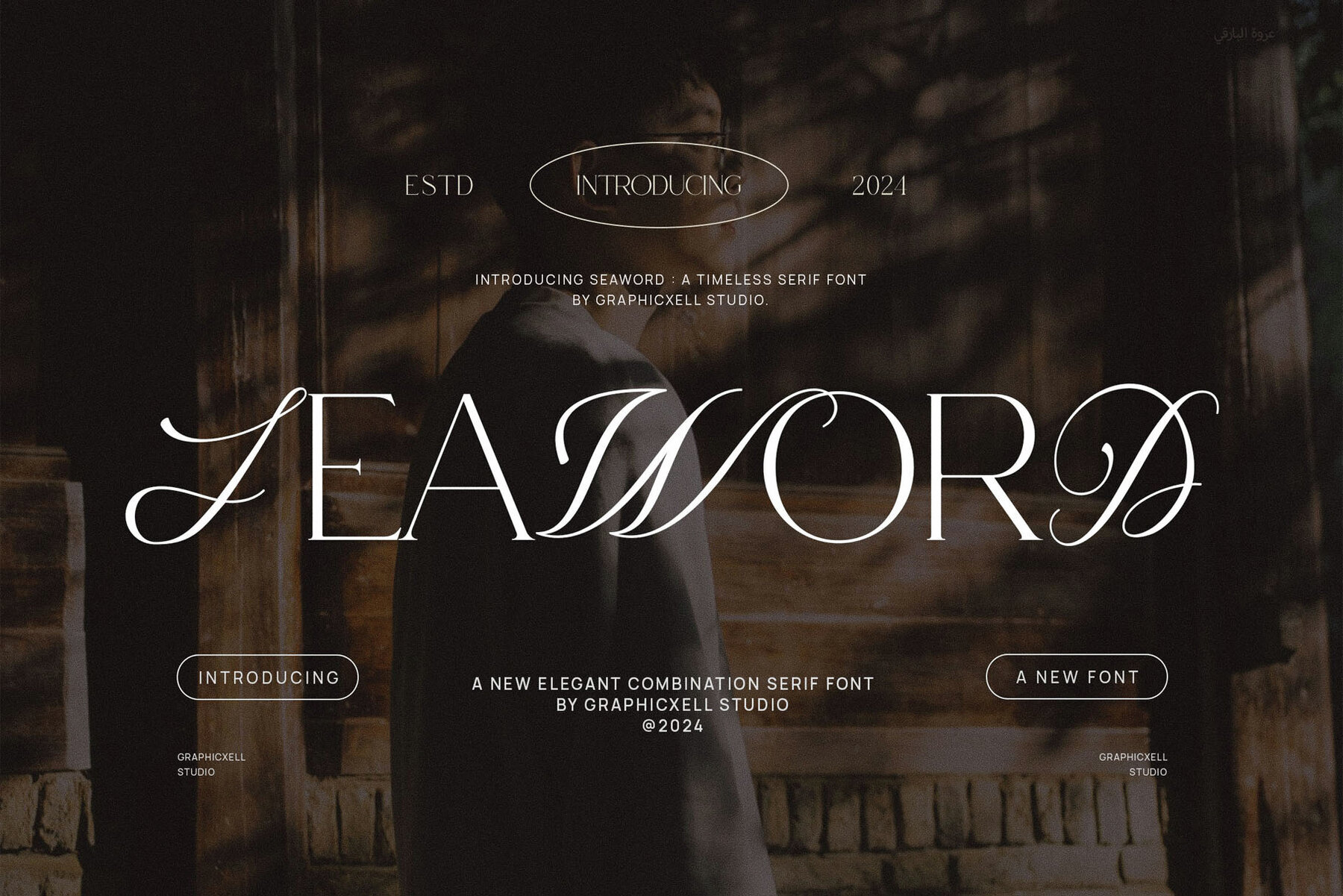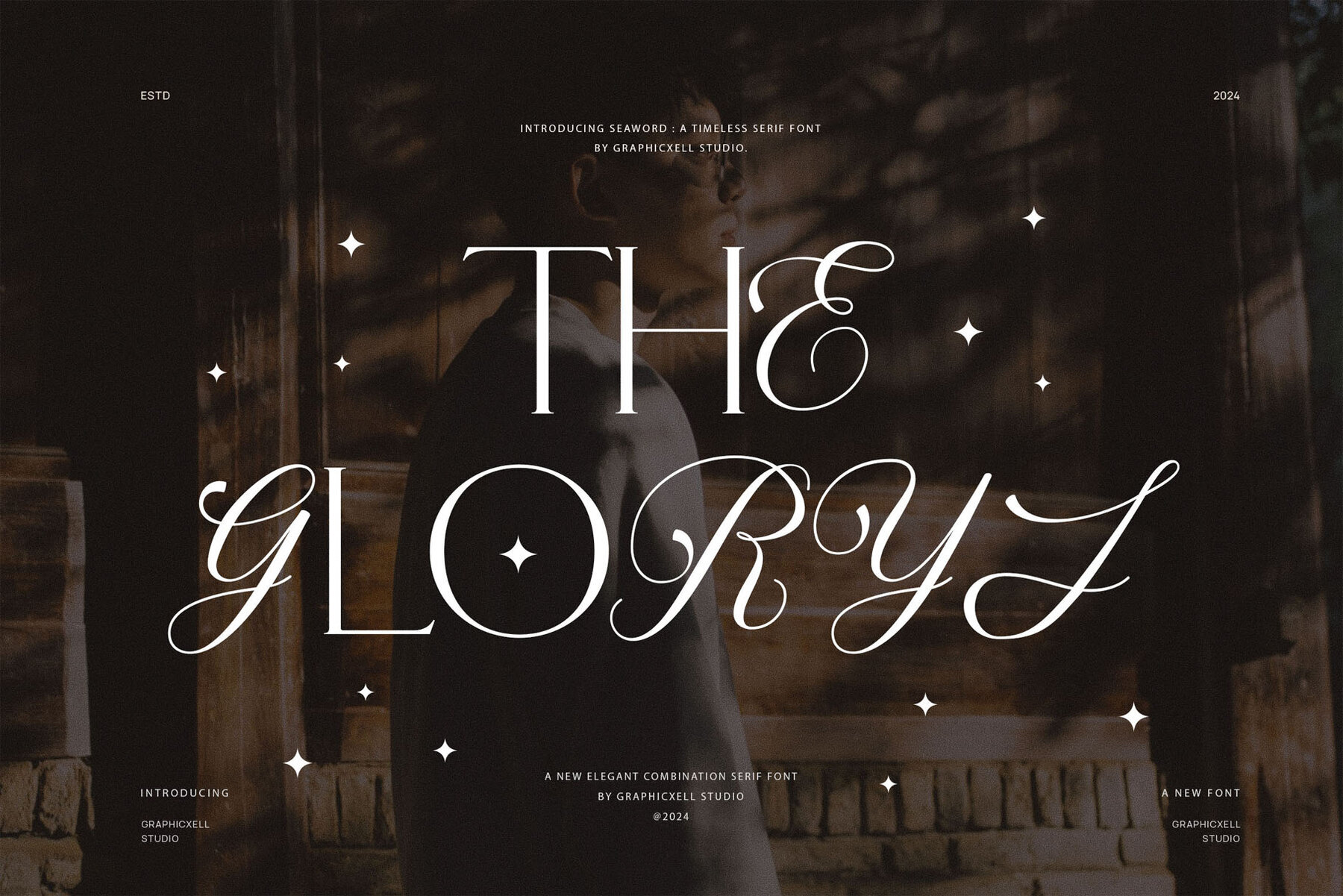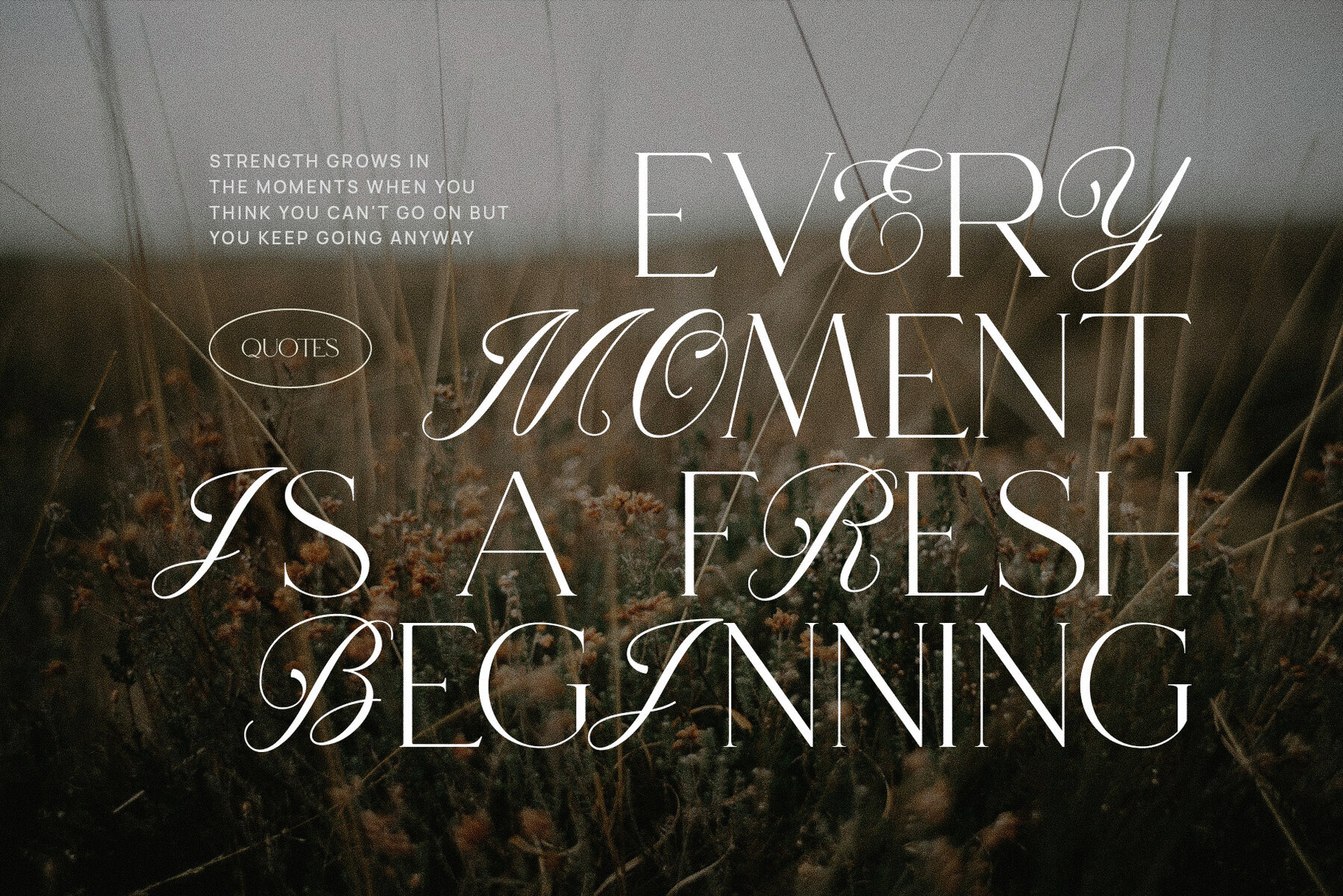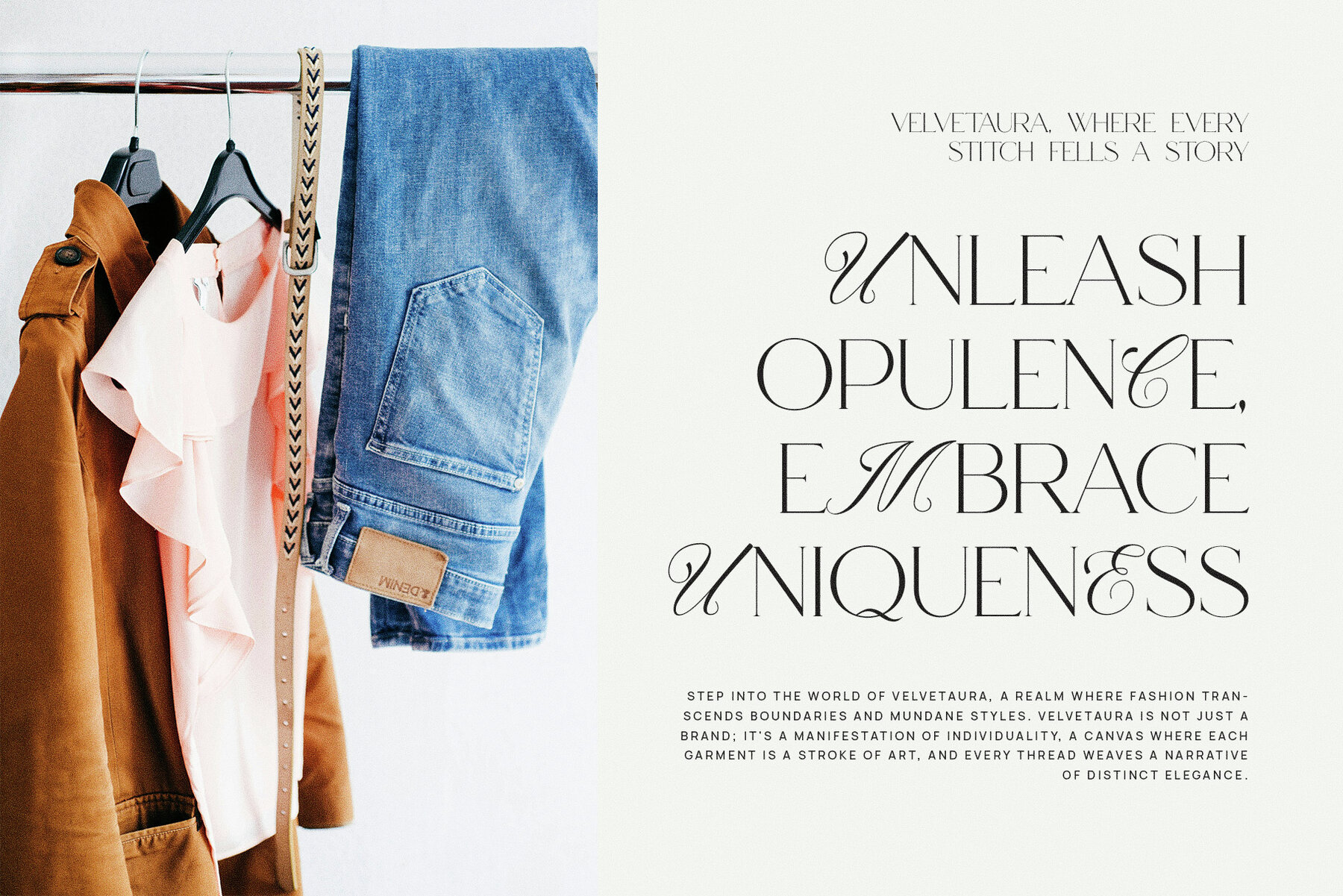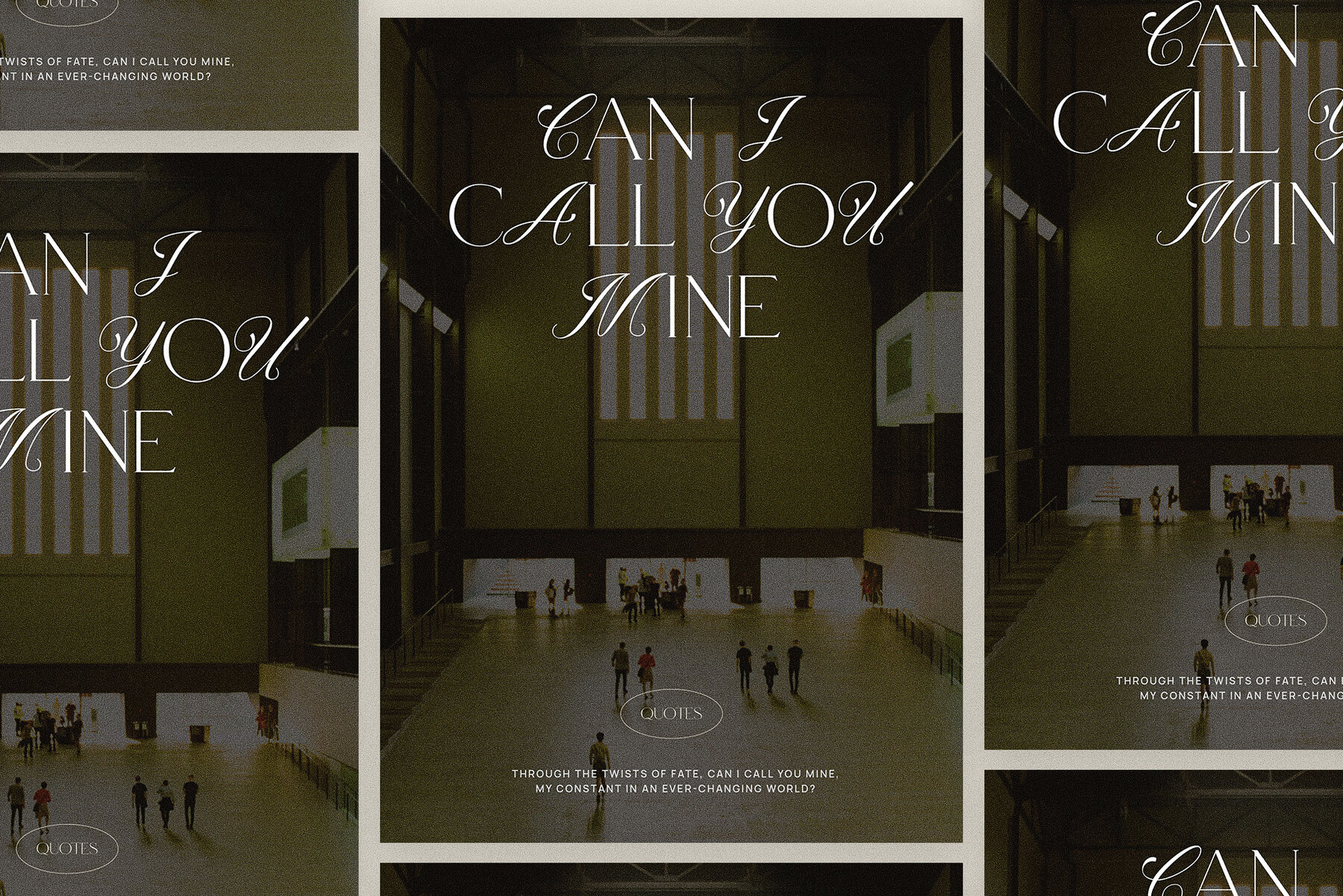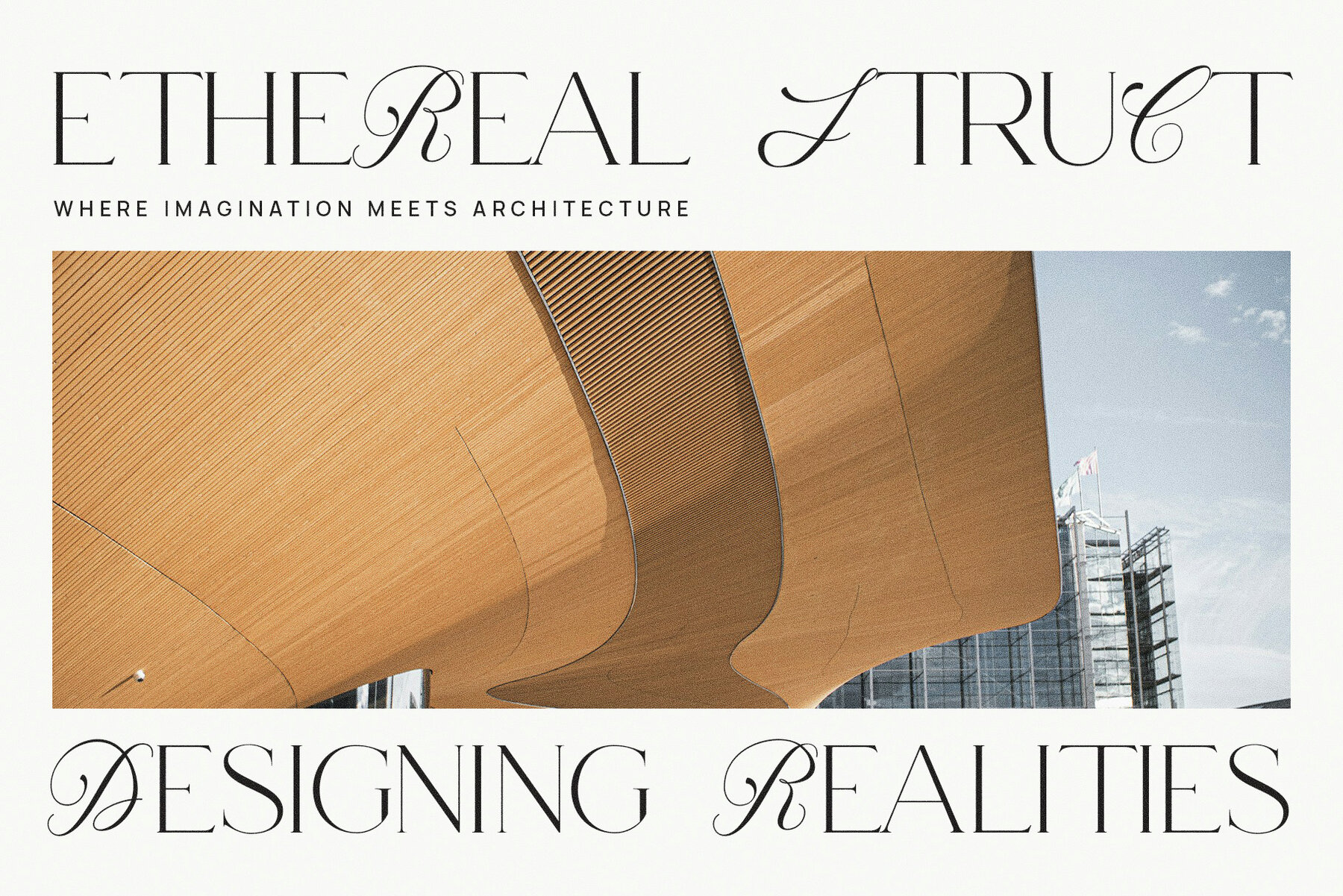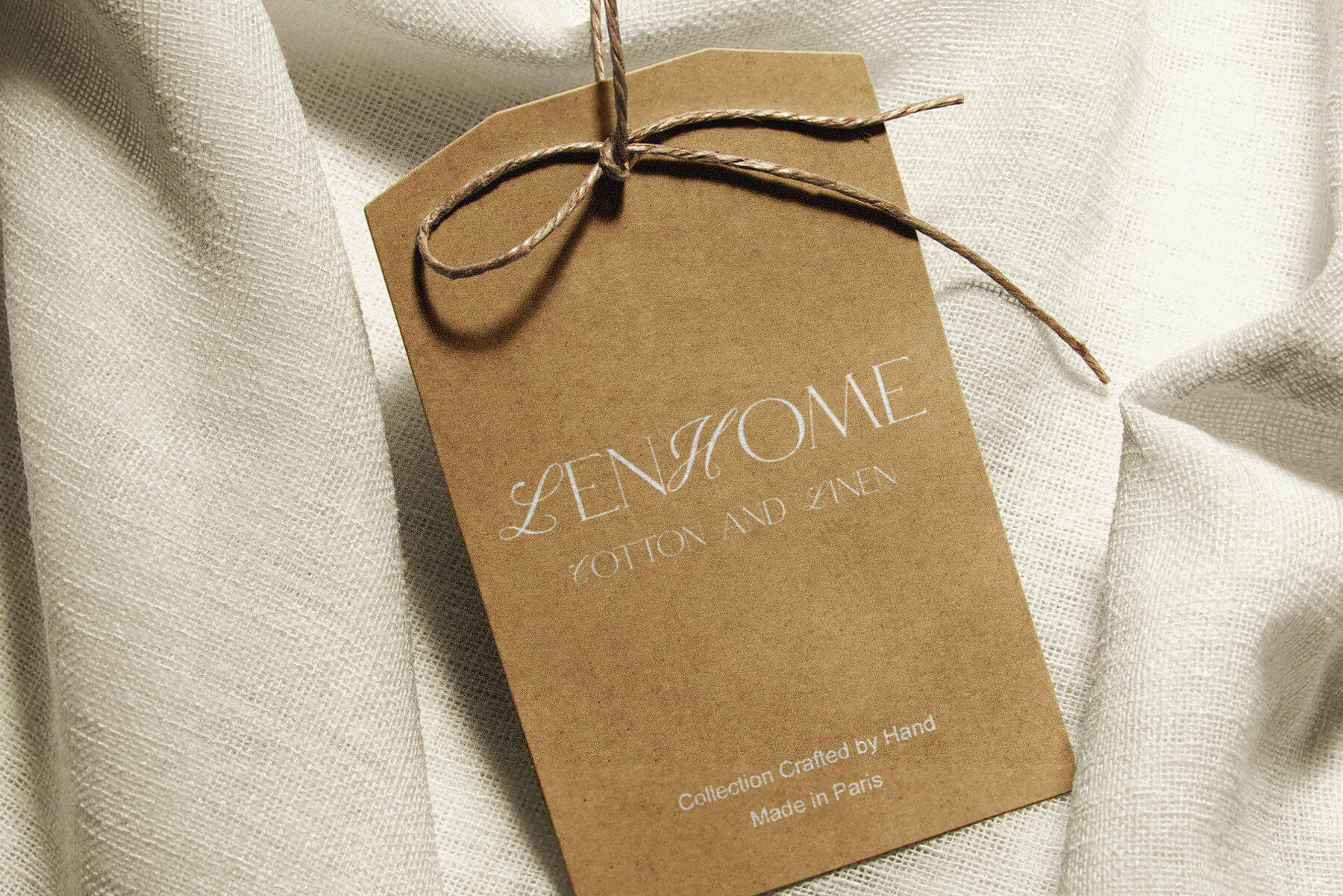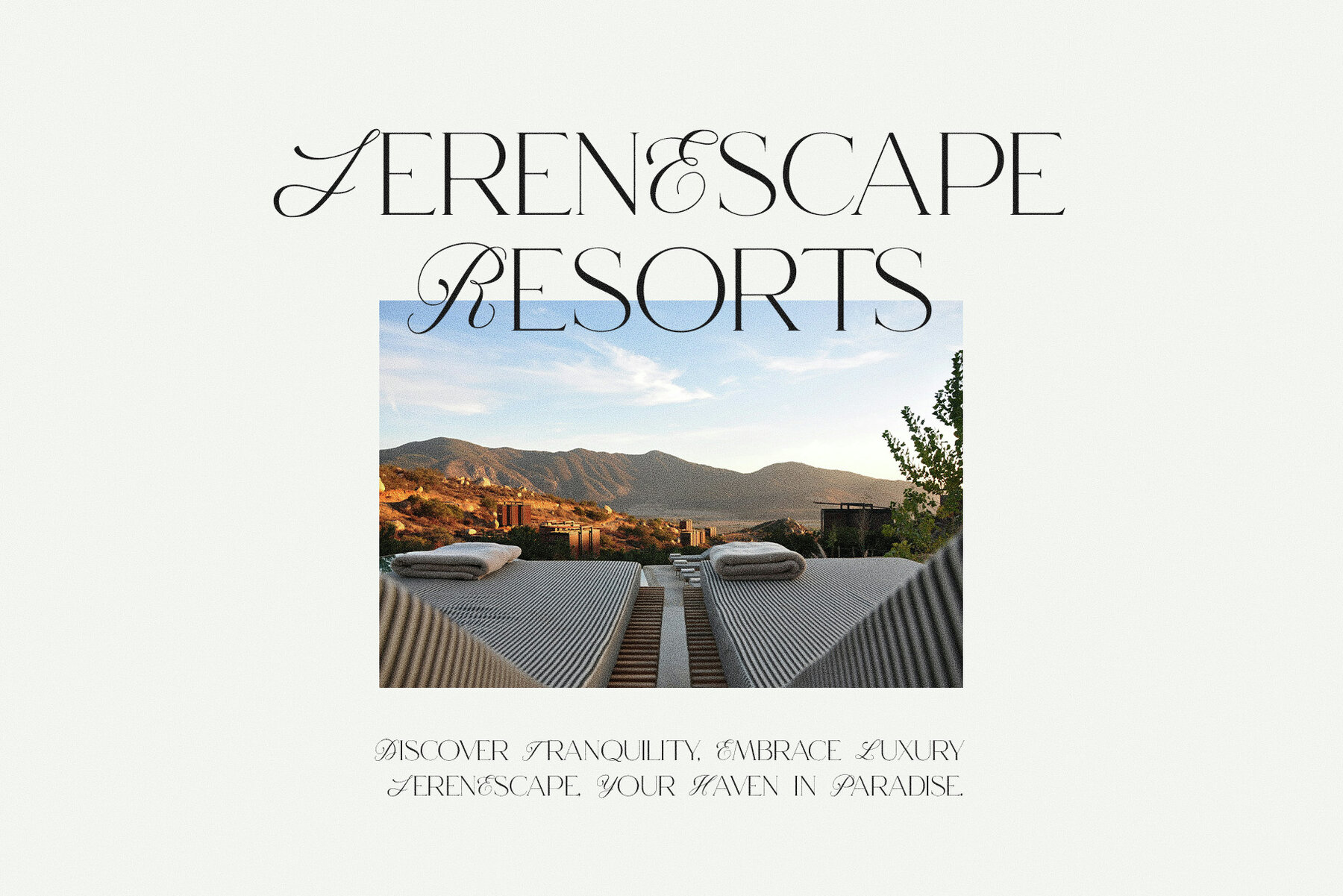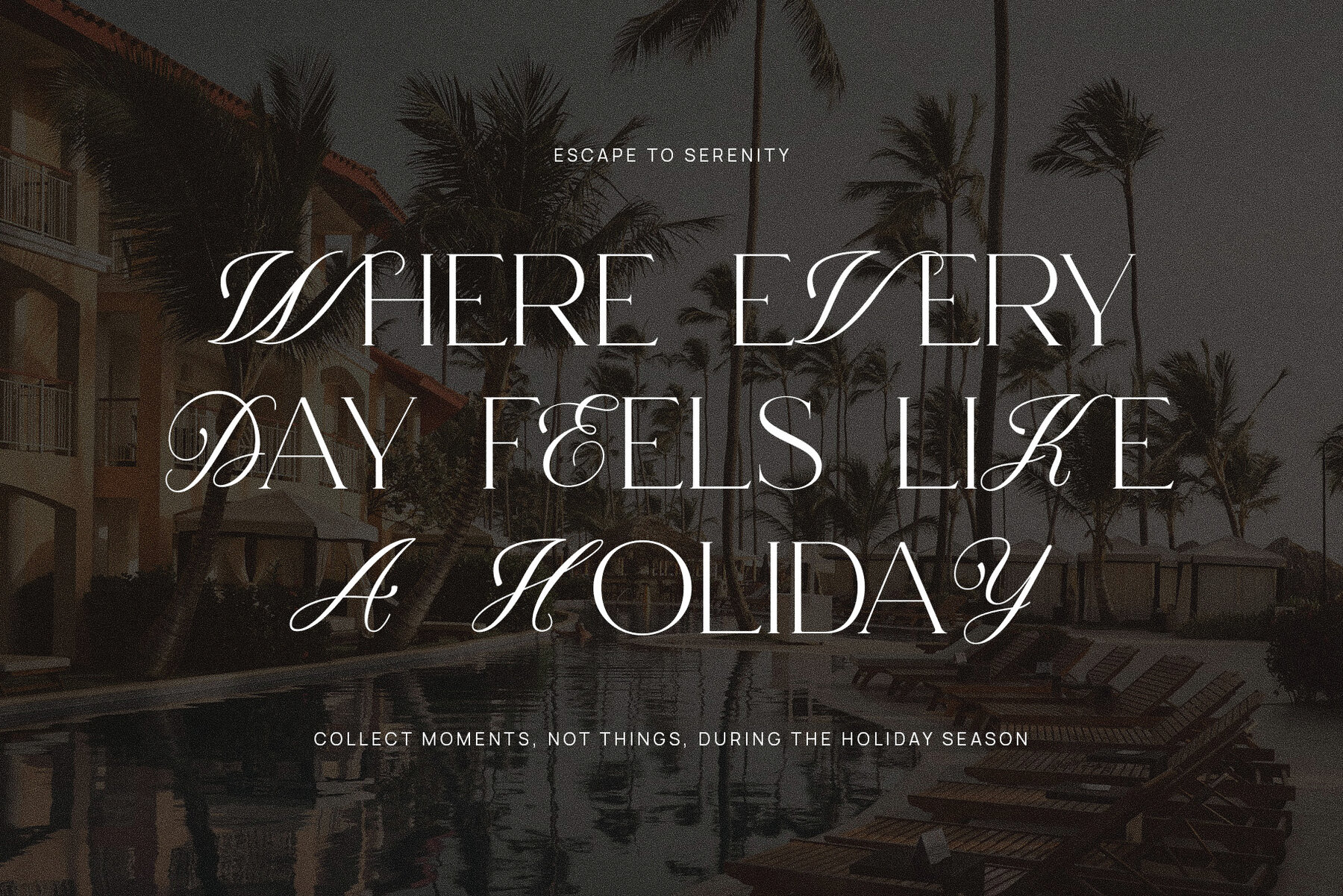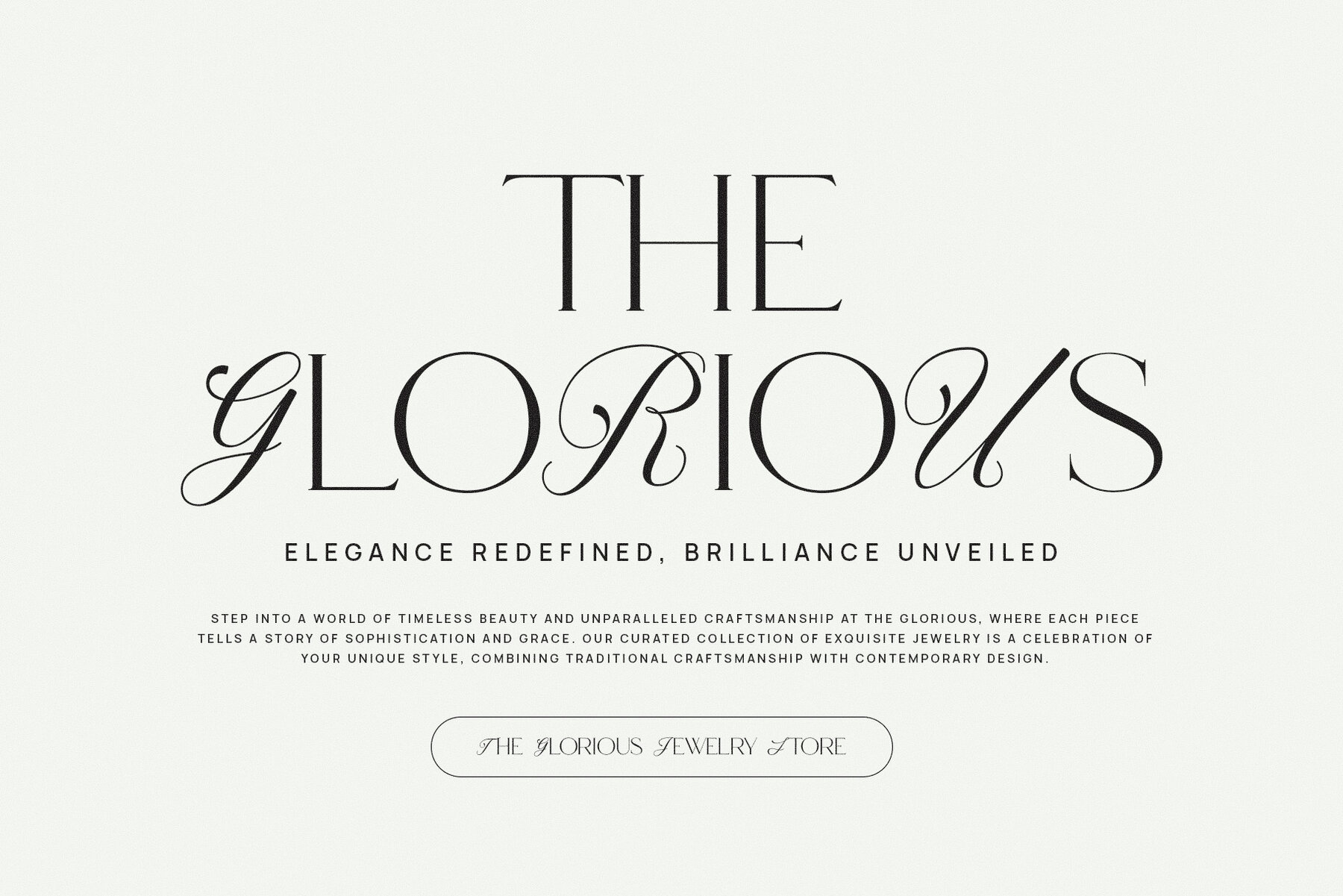
Seaword Font
Seaword Regular
Introduce the artistry of typography to your creative process with the Seaword Calligraphy Serif Font. Crafted by the innovative Graphicxell, this unique and versatile typeface perfectly blends sophistication and simplicity, a real game-changer for logos and branding. Its distinguished aesthetic makes it the ideal choice for graphic designers, infusing every project with a touch of elegance. Features:Transform Your Brand with Seaword Calligraphy Serif Font by Graphicxell